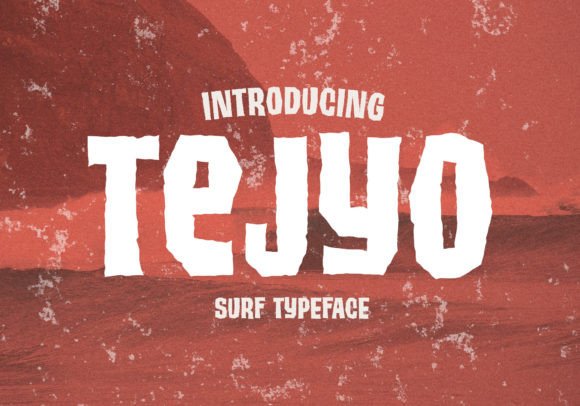
Embark on a typographic journey with Tejyo Font, the ultimate display font that captures the untamed spirit of summer. Its bold strokes and rough edges evoke the raw energy of crashing waves and sandy beaches, adding an iconic touch to your creative endeavors.
Tejyo Font is not just a font; it's an expression of freedom and individuality. Unleash your creativity and let your words dance with a style that speaks volumes. Whether you're designing logos, posters, or eye-catching headlines, Tejyo Font is your perfect companion.
Immerse yourself in a world of endless possibilities. Design bold embroidery patterns that pop with character, create stunning social media graphics that demand attention, or craft unique branding elements that leave a lasting impression. Tejyo Font is the key to unlocking your design potential.
With Tejyo Font, you're not just downloading a font; you're embracing a lifestyle. A lifestyle of fearless expression, where your creativity knows no bounds. Join the ranks of design enthusiasts who have discovered the power of Tejyo Font and transformed their projects into masterpieces.
Don't settle for ordinary fonts that blend into the background. Choose Tejyo Font and let your designs stand out with an iconic style that captivates and inspires. Experience the Tejyo difference today and elevate your creativity to new heights.